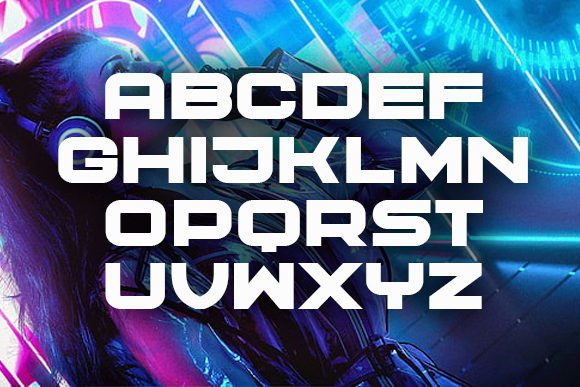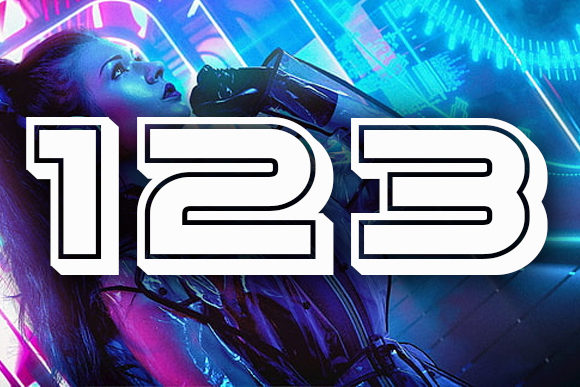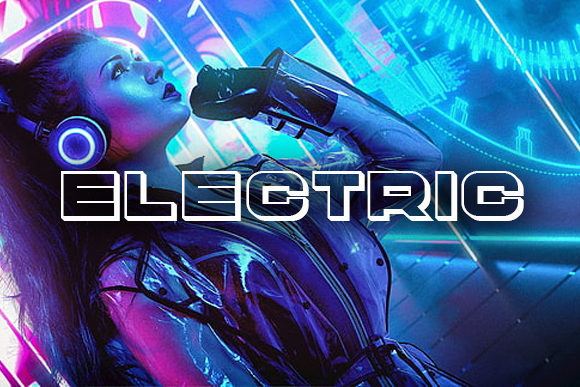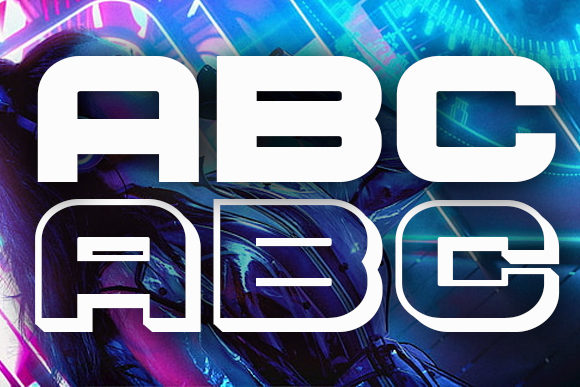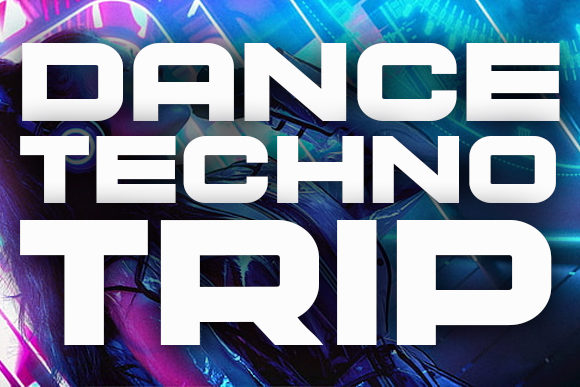
Introduction to Cyber Princess Font
Have you ever been working on a creative project and suddenly, the perfect font appears to bring your vision to life? For designers, this moment is pure magic. It’s the moment when all the elements come together, and the design takes on a life of its own. For me, that moment happened when I stumbled upon the Cyber Princess Font – a stunning display font that screams futuristic chic.
With its sleek and modern design, the Cyber Princess Font is a game-changer for any creative project. Whether you’re working on a flyer, poster, or website, this font is sure to make your design stand out. And the best part? It’s a high-quality font that’s available for free download, complete with a transparent background that makes it easy to customize.
As a valuable design resource, the Cyber Princess Font is a must-have for any designer looking to elevate their work. Its unique style and versatility make it perfect for a wide range of creative projects, from sci-fi themed designs to futuristic cityscapes. So why not give it a try and see how the Cyber Princess Font can bring your designs to life?
Key Features of Cyber Princess Font
- Unique, futuristic design that’s perfect for any creative project.
- Transparent background option for easy integration into various design elements.
- Perfect for use in digital art, graphic design, and other creative projects where a futuristic aesthetic is desired.
- Unique, cyber-inspired design elements that add a touch of sophistication and modernity to any design.
Honest Review: Cyber Princess Font
As a designer, I’m always on the lookout for high-quality design resources to elevate my creative projects. The Cyber Princess Font has caught my attention with its unique blend of futuristic and feminine styles.
Here are the things that work well with this font: ✨
- The font is available in a variety of styles, from bold to italic, giving users plenty of options to experiment with.
- The transparent background feature allows for seamless integration with any design project.
- The font is highly customizable, making it perfect for designers who want to add a personal touch to their work.
However, there are some limitations to consider: ⚠️
- The font may not be suitable for all design projects, especially those that require a more traditional or conservative aesthetic.
Overall, I’m impressed with the Cyber Princess Font. It’s a great addition to any designer’s toolkit, offering a unique and versatile font that’s perfect for a wide range of creative projects.
Tips for Getting the Most Out of Cyber Princess Font
Experiment with different font sizes, colors, and combinations to create a unique look for your design project. Use the font in conjunction with other high-quality design elements to elevate your creative project.
Common Use Cases for Cyber Princess Font
The Cyber Princess Font is ideal for use in digital designs, such as social media graphics, website headers, and mobile app interfaces. It’s also great for use in print materials, like posters, flyers, and business cards.
Pixelia compares to Cyber Princess Font in its futuristic and bold style, but it has a more pixelated and retro-futuristic feel. It’s a great alternative for designers who want to add a nostalgic touch to their design resource.
2. Glacial Raw Font
Glacial Raw is a free download font that offers a sleek and modern design. It’s ideal for designers who want to create a clean and minimalist look for their creative project. Glacial Raw has a transparent background, making it easy to use in various design applications.